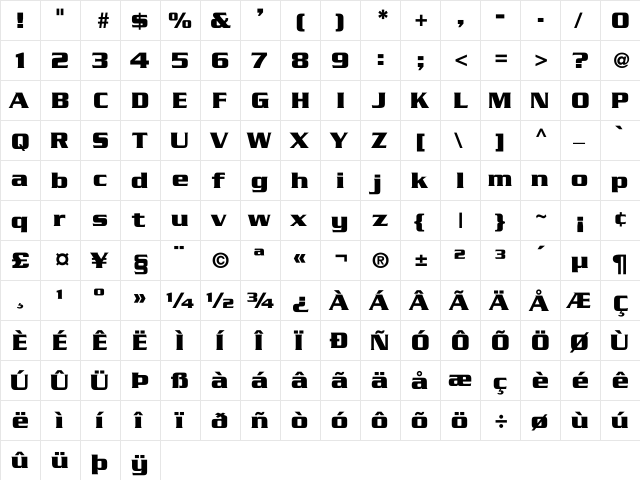
Glopentine-Bold-Bold Regular
Design Context for Glopentine-Bold-Bold Typeface
Glopentine-Bold-Bold takes a measured approach to typography — its balanced proportions and neutral character make it a reliable workhorse for both digital and print work. Its bold stroke weight gives it real presence on the page.